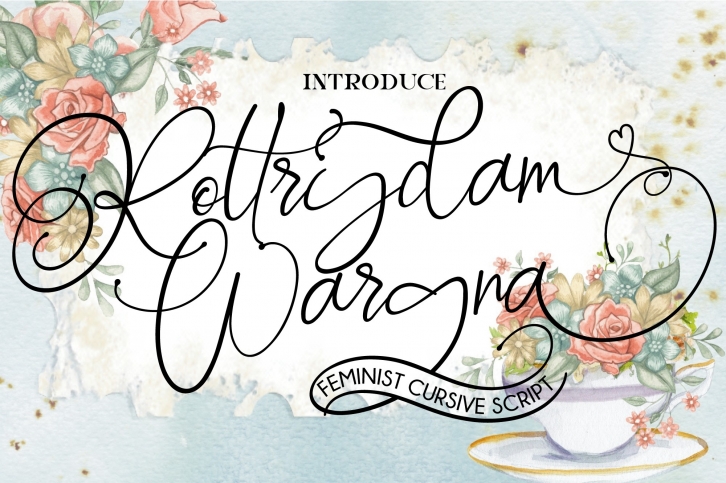
Rottrydam Wargna is a trendy and unique font with an authentic style. It was designed by FallenGraphic Std and it's a great choice for creative people who need such a font. It was released on May 12, 2019 and the file size is 3.83 MB. Rottrydam Wargna will add an organic vibe to any design idea!